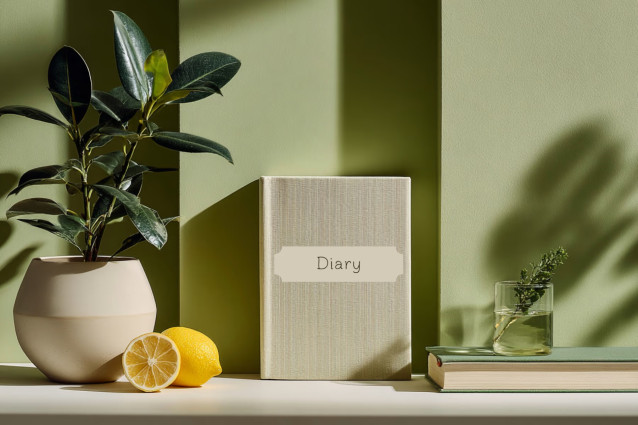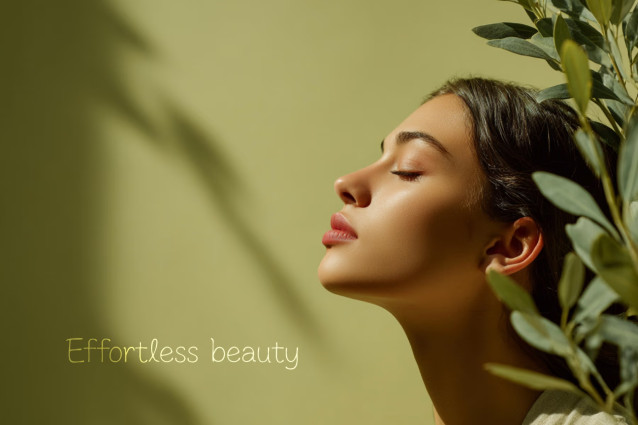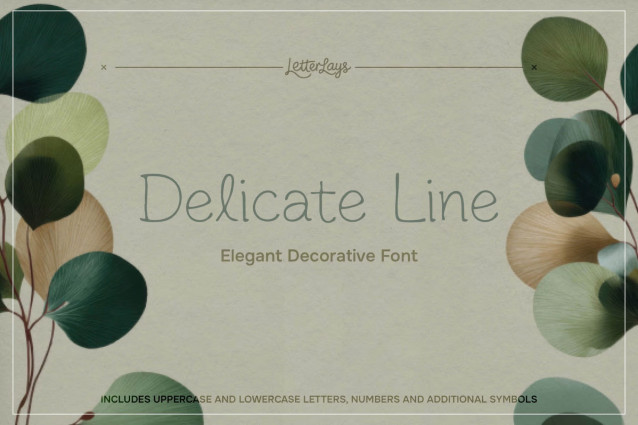
Delicate Line Font
✨ Delicate Line is a delicate monoline display font with thin elegant strokes, soft minimal rhythm, and refined lifestyle-brand clarity. It is ideal for wedding stationery, boutique branding, wellness logos, invitations, beauty packaging, editorial titles, minimal posters, and social media graphics, as well as branding, packaging, posters, labels, social graphics, and creative display typography.
🎨 Use Delicate Line when your design needs a distinctive title style, a memorable product name, or a custom typographic mood that feels aligned with the visual world of the project.
The font includes uppercase and lowercase letters, numbers, punctuation, and additional symbols shown in the previews. 💛